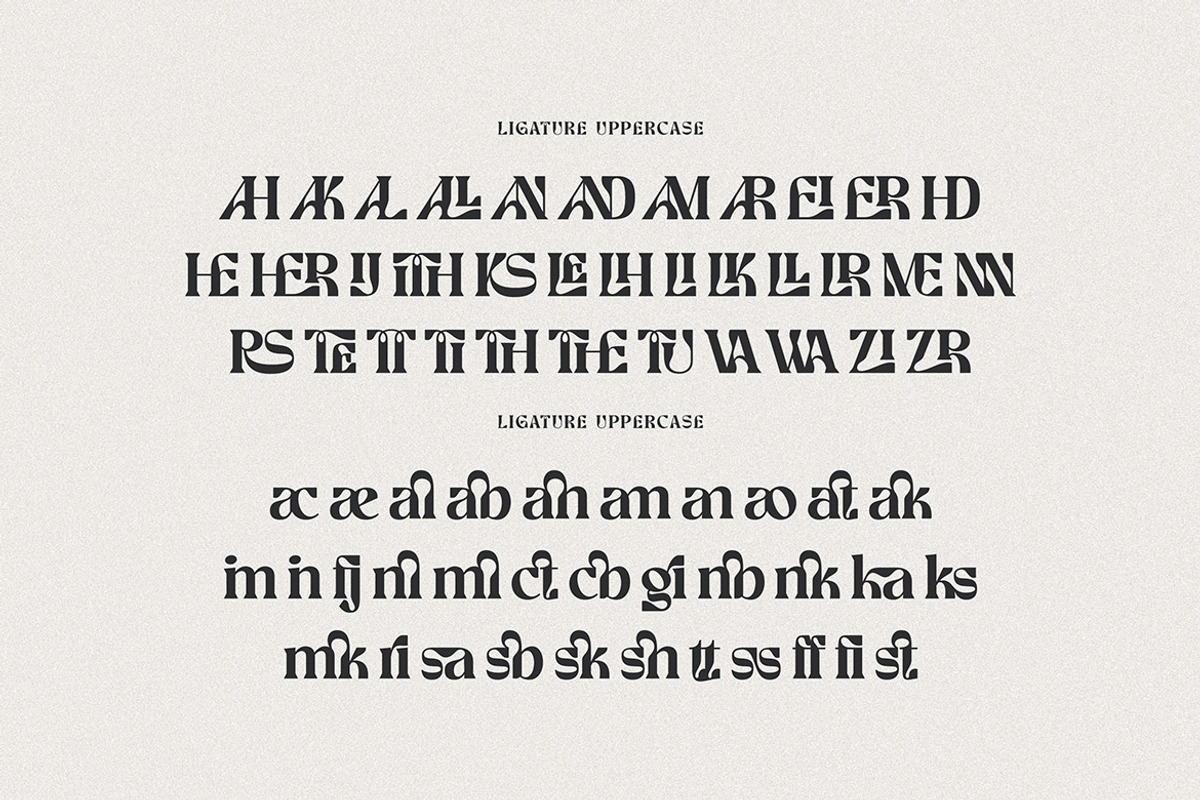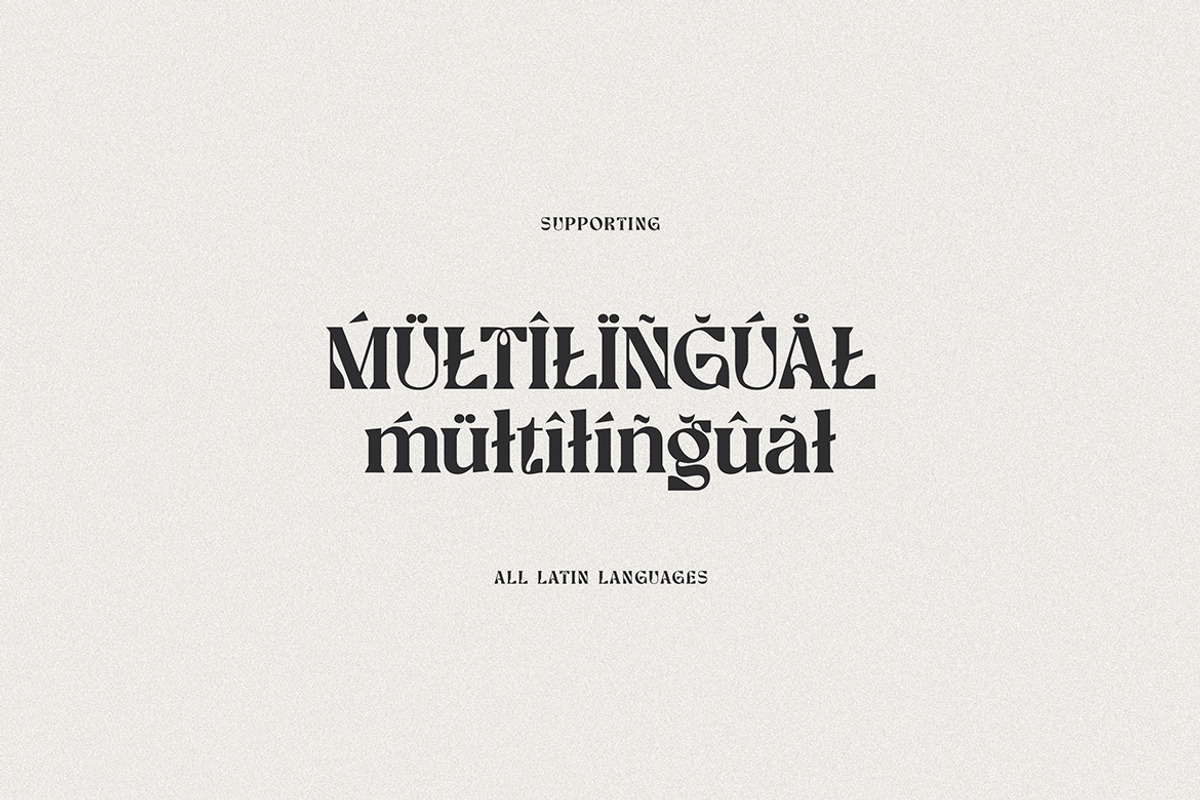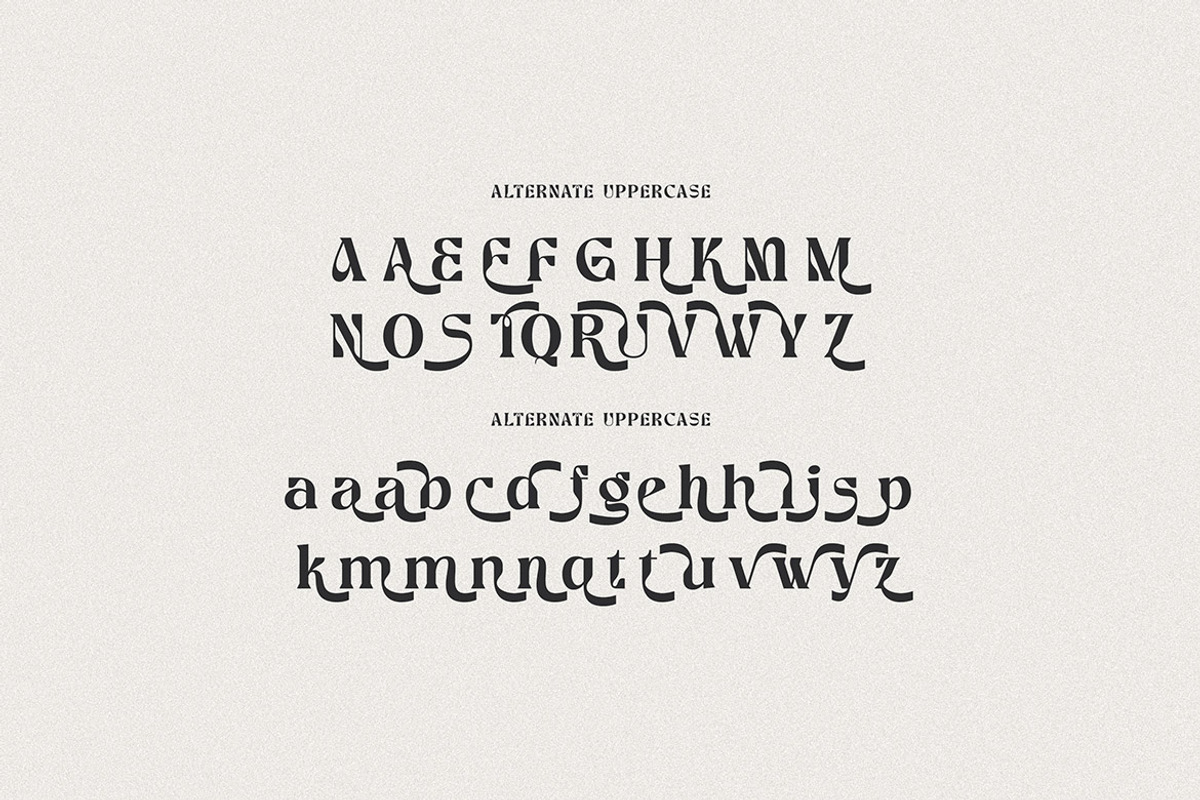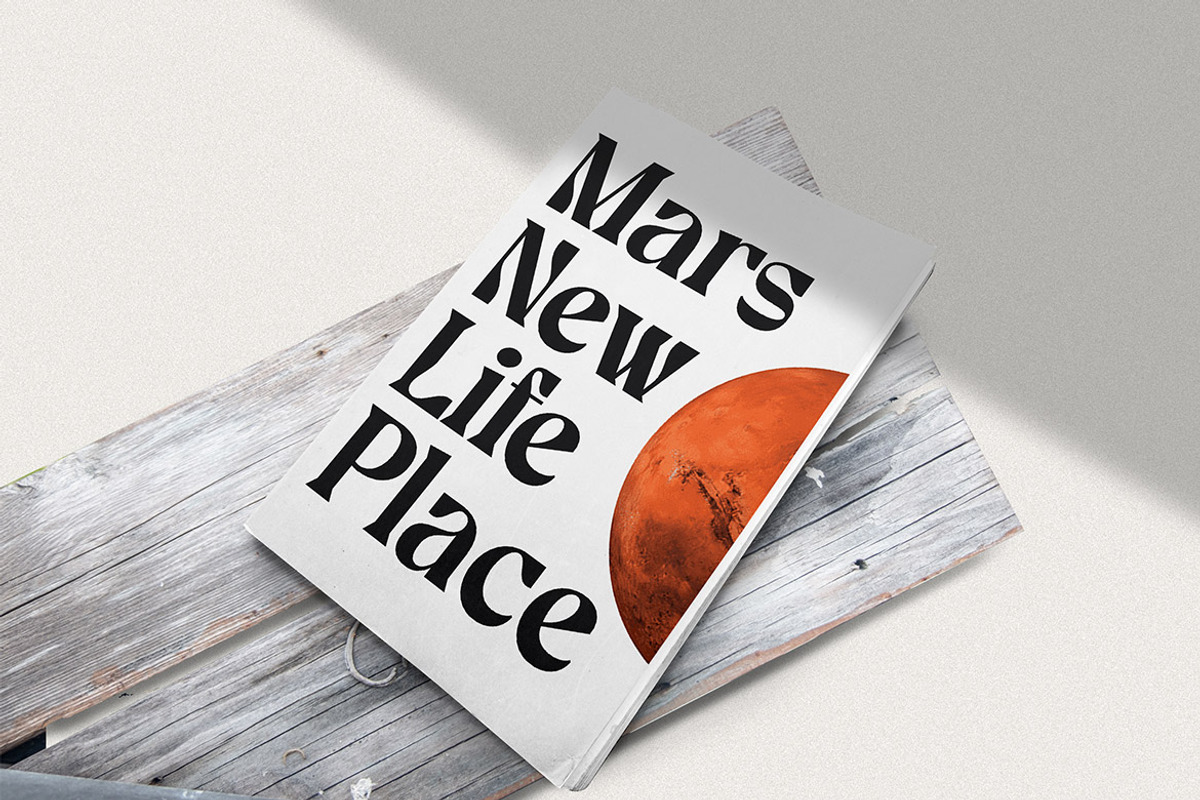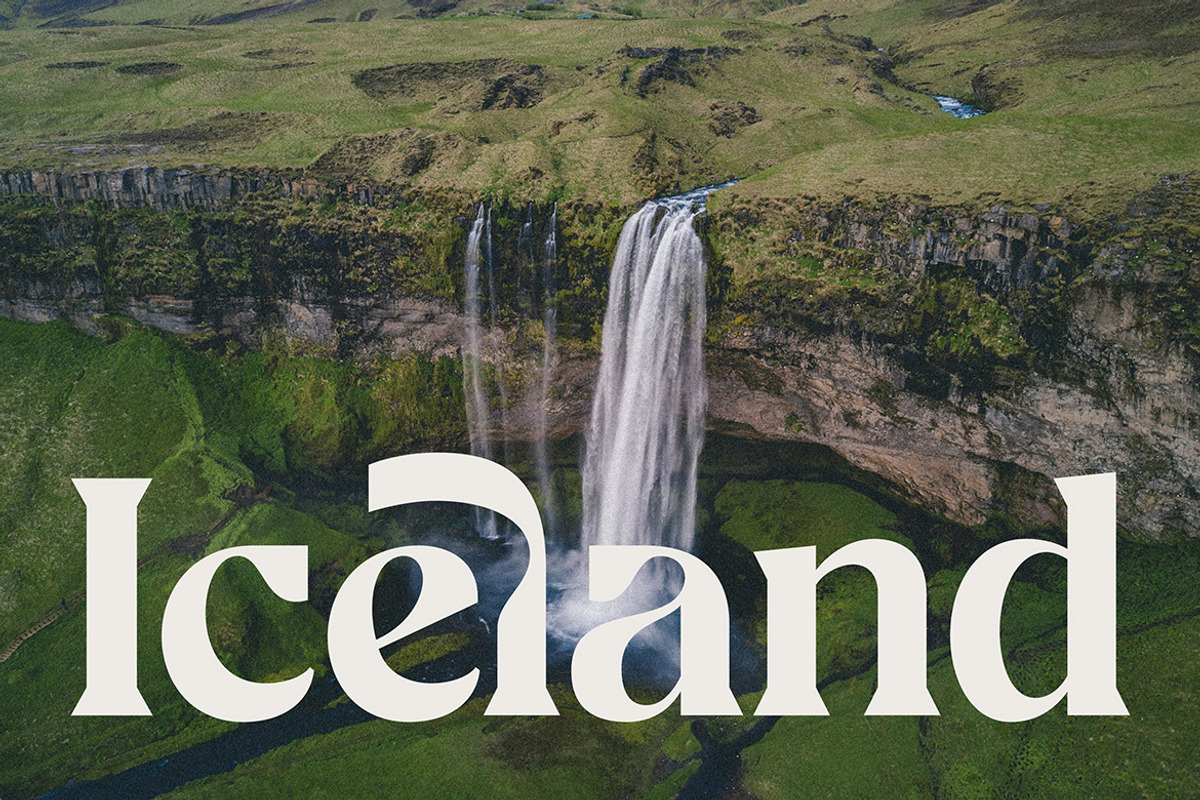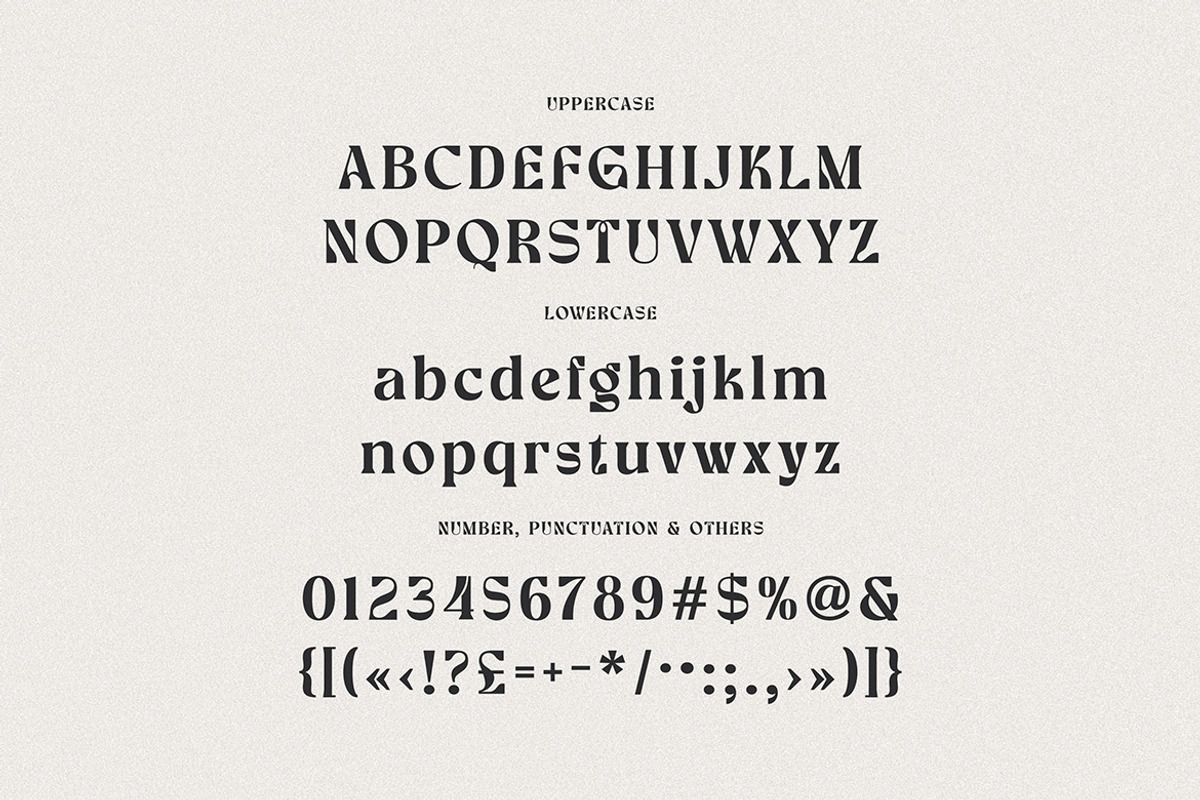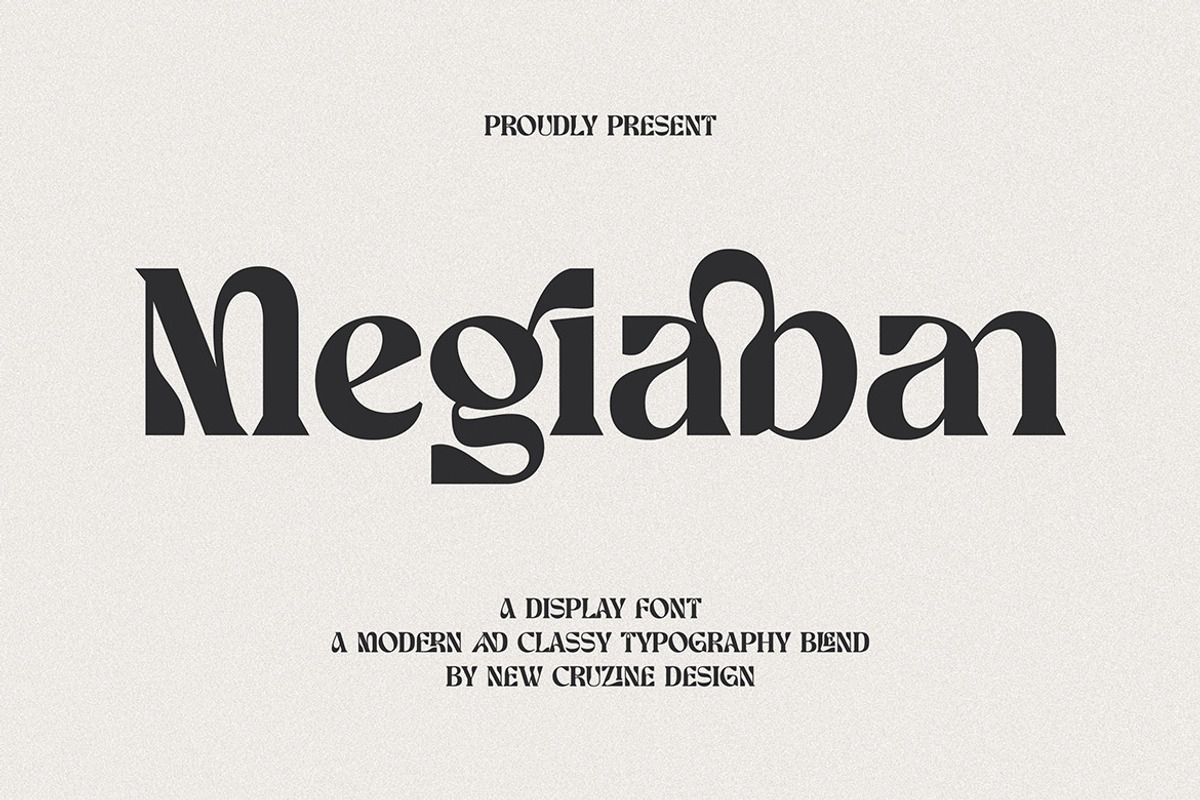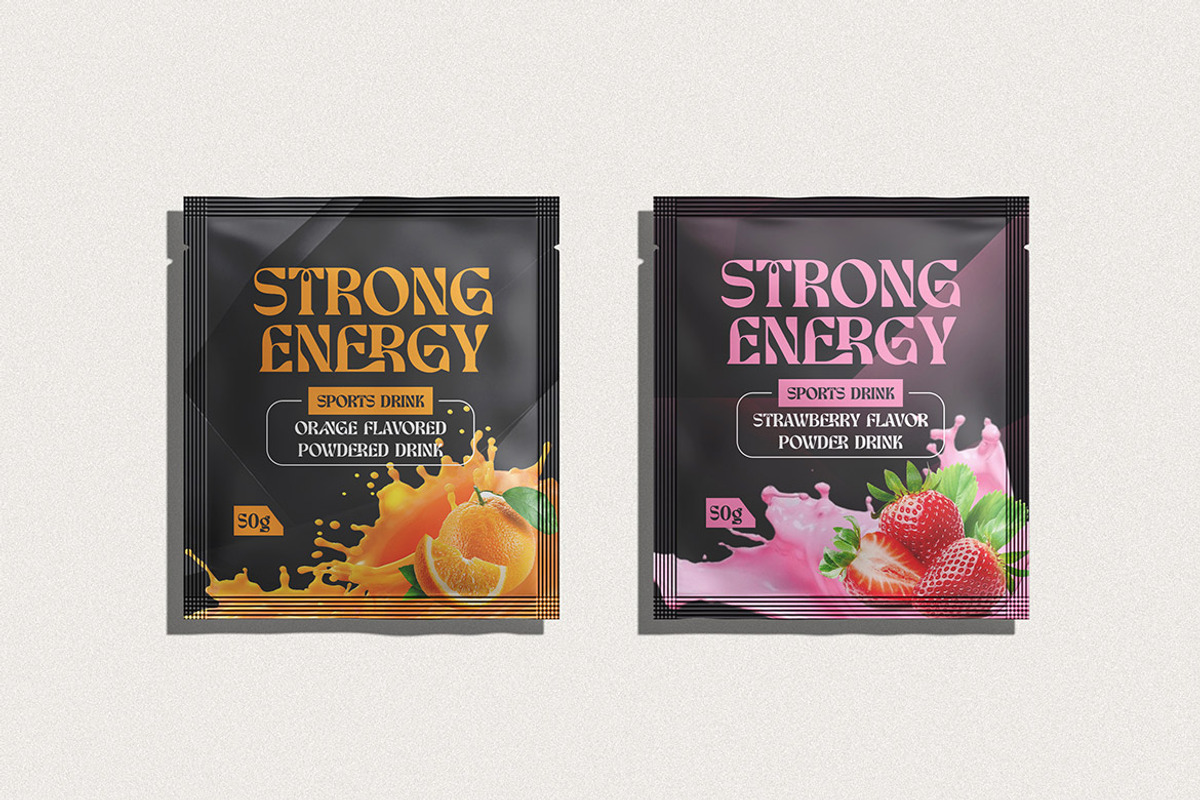
Magiaban Modern Serif
Trendy, elegant, bold, creative, retro & modern style serif font for your new fancy projects. Stylish and classic style on Magiaban font will be great for any modern or classy branding project. Lot of alternates and ligatures will help you to create unique and original logo design or website header! Enjoy :)
- Alternate characters & lot of ligatures
- Great for modern branding projects!